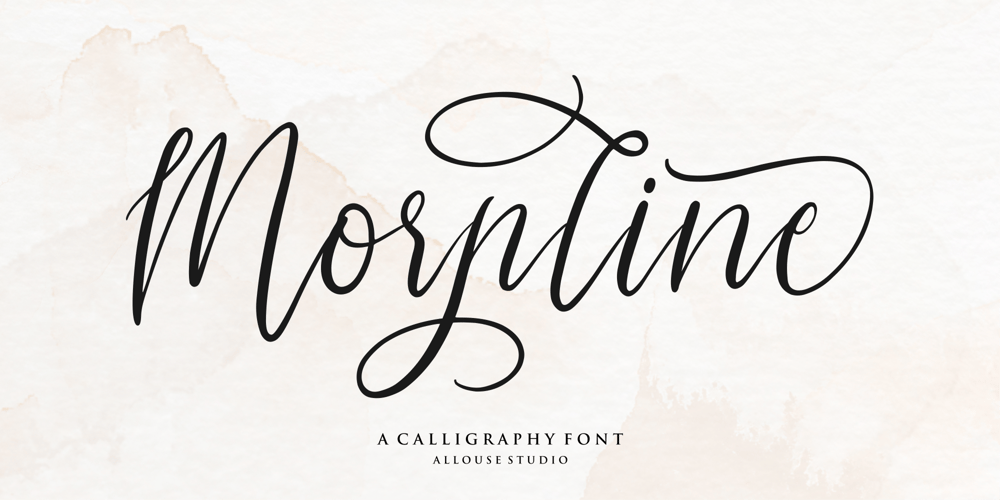
Morpline Font Family was designed by Fachrizal Yusuf and published by Allouse Studio. Morpline contains 1 styles and family package options. Proudly Presenting, Morpline a Calligraphy Font Morpline is perfect for any titles, logo, product packaging, branding project, megazine, social media, wedding, or just used to express words above the background. Morpline includes ligatures, stylistic alternates, beginning and ending swash. Morpline also come with Multi-Lingual Support. We highly recommend using a program that supports OpenType features and Glyphs panels like many of Adobe apps and Corel Draw, so you can see and access all Glyph variations. Enjoy the font, feel free to comment or feedback, send me PM or email. Thank You!